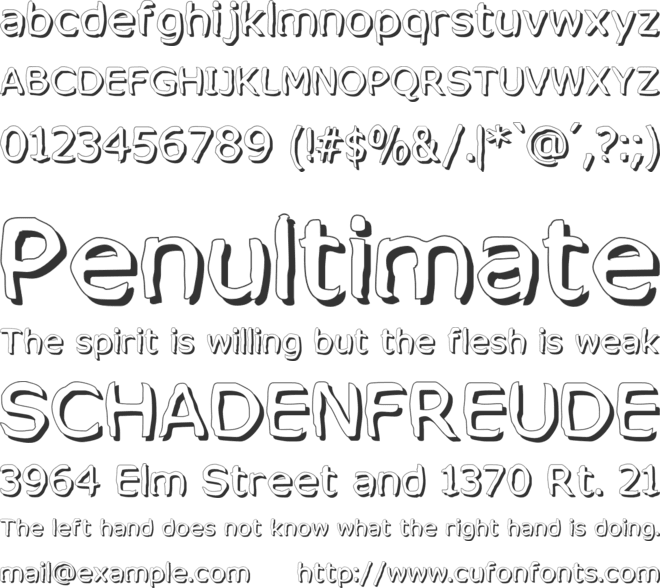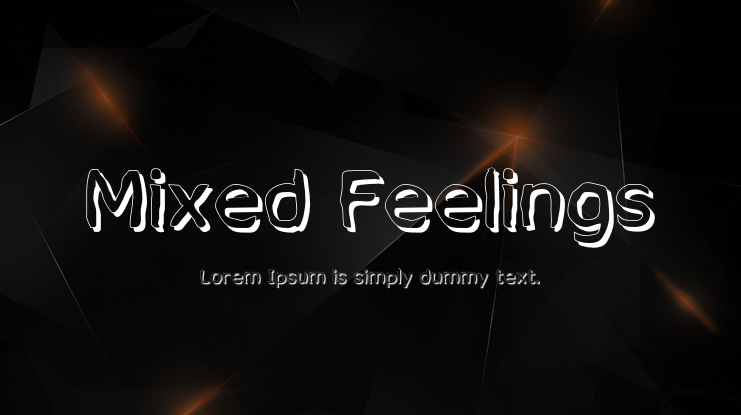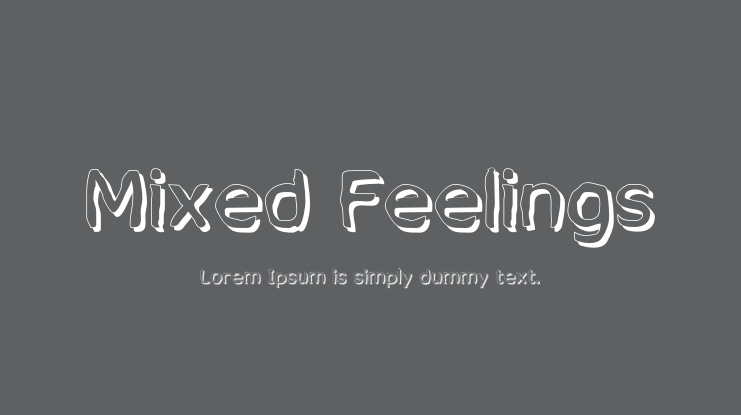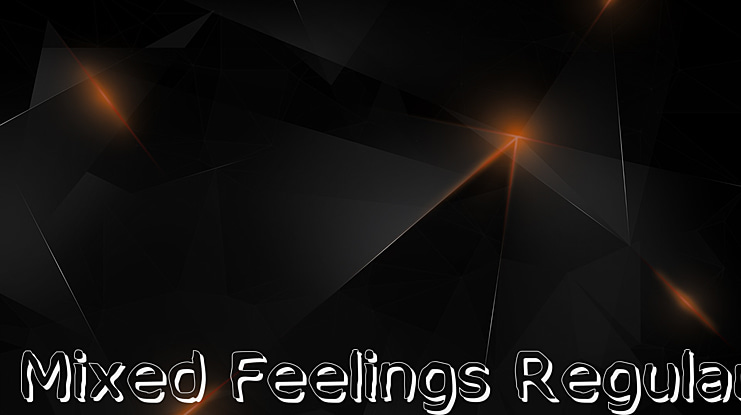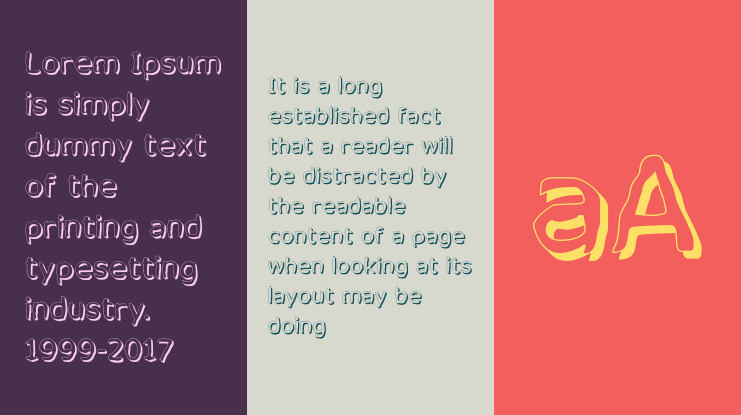
Mixed Feelings Font
Ersen Akkaya
Mixed Feelings is an inky shadowed font in opentype format for the pc & Mac.
Mixed Feelings is designed by Ersen Akkaya - www.ibrahati.com